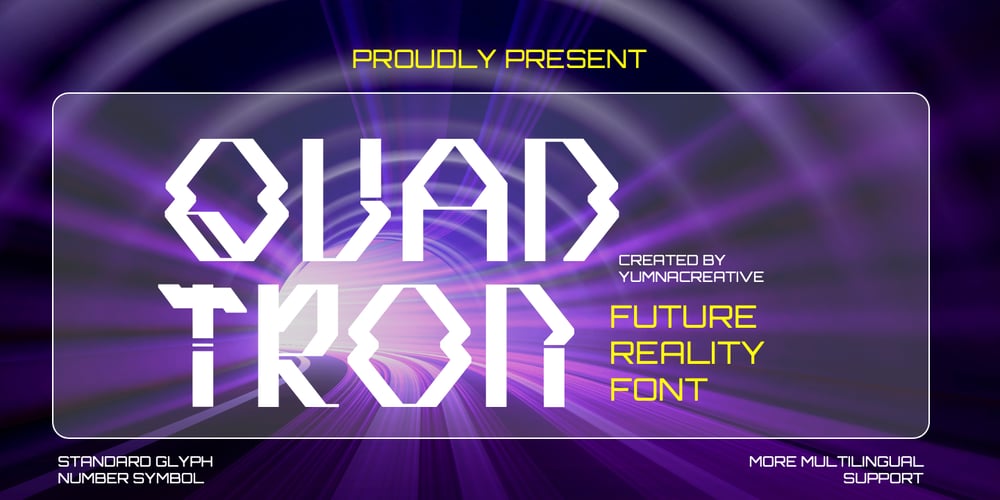
Quadtron
Quadtron font
Quadtron Font Family was designed by Dhimas Habibie and published by Yumnacreative. Quadtron contains 1 styles and family package options. Introducing Quadtron – Future Reality Font This Font is a delicate, elegant and flowing handwritten font. It has beautiful and well as a unique blend of ligatures a letter, so that the authors compose it with a and little swirly embedding, so that a modern font is formed and ready to make a statement by adding elegant and unique flair to your next design project. Add it to your most creative ideas and notice how it makes them come alive!FEATURES • Uppercase & Lowercase • Numbering & Punctuation • Alternate & Ligature • Multilingual Supports • Available Works On PC or MAC • Simple Way To Install • Support Adobe Office, also works on Microsoft Office Got any questions? Drop me a line and I’ll be happy to answer! Hope you Like it. Thanks.